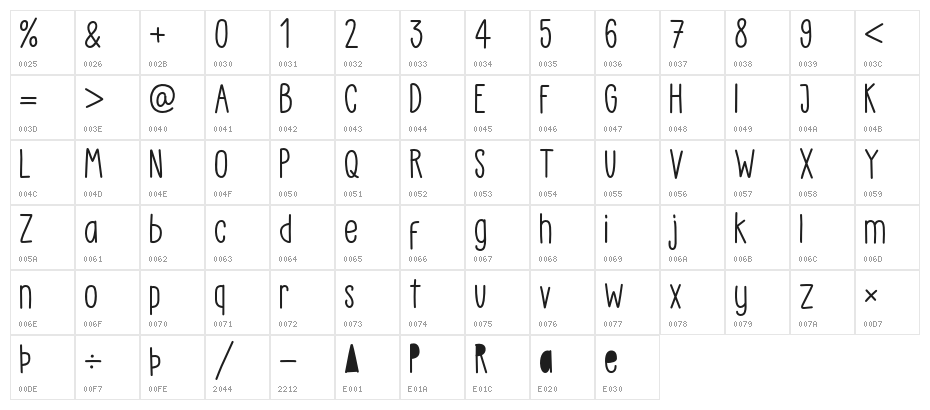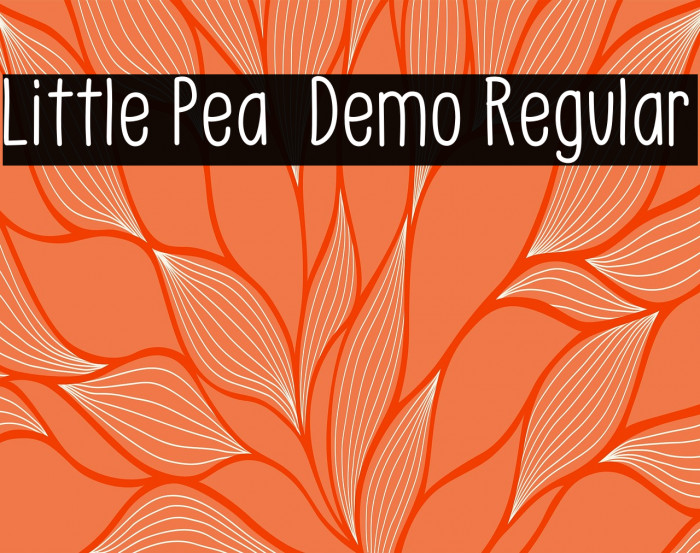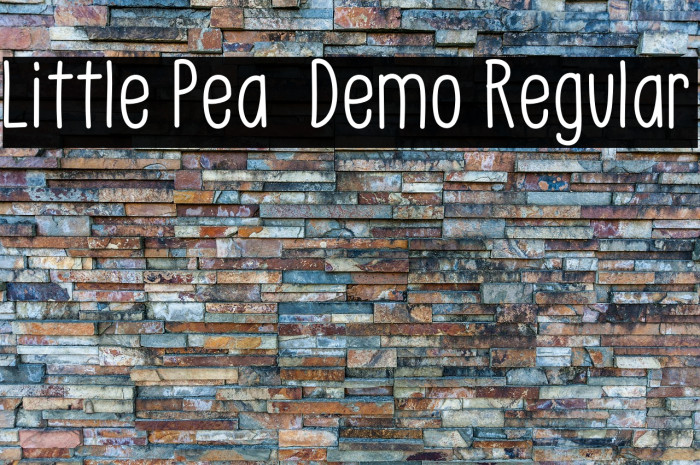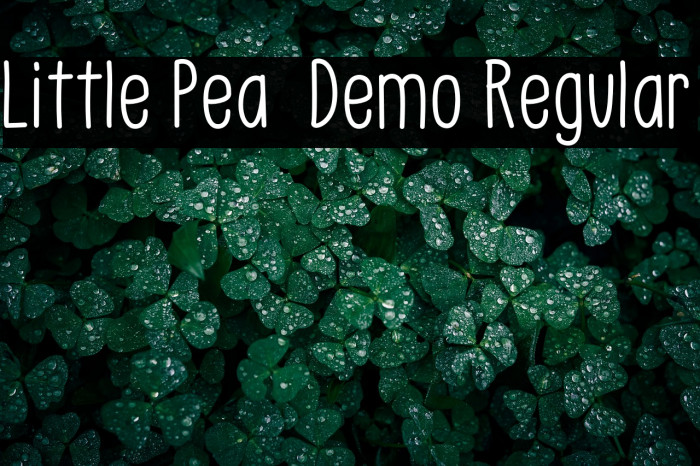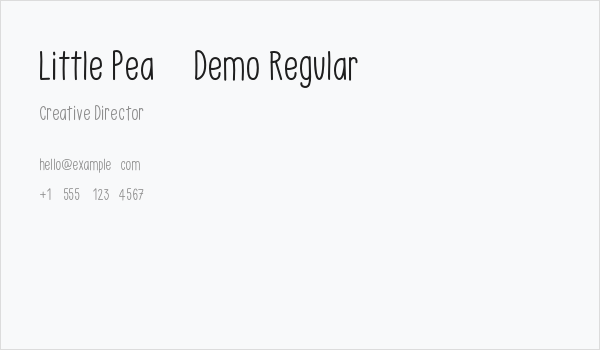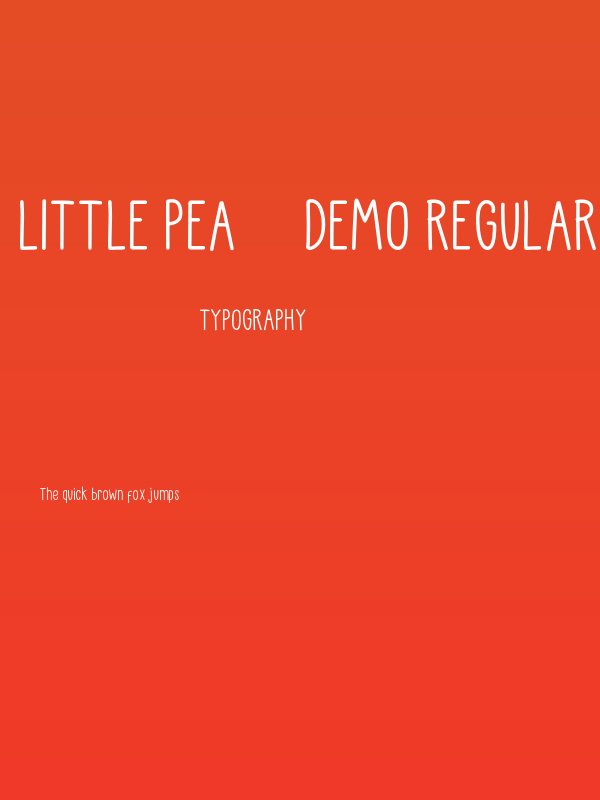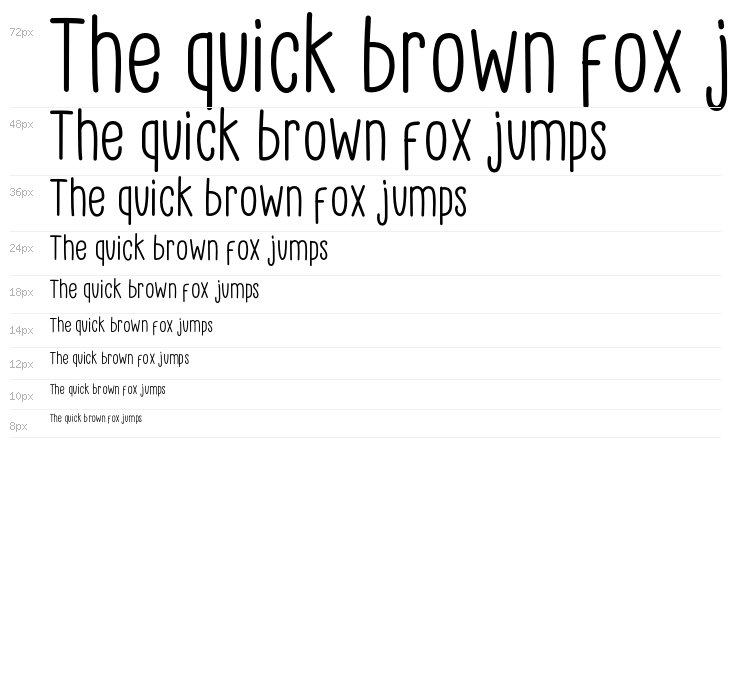
Little Pea - Demo Regular Font
Little Pea - Demo Regular Description
This playful and whimsical font features tall, narrow characters with a hand-drawn appearance. The letters have a consistent stroke width, giving them a clean and uniform look. The rounded edges and slightly irregular shapes add a friendly and approachable feel. The font includes both uppercase and lowercase letters, numerals, and a few special characters. Its informal style makes it suitable for creative projects, children's books, and casual designs. The overall aesthetic is light-hearted and fun, making it ideal for projects that aim to convey warmth and friendliness.
| Overall Style | Whimsical |
| Use Case | Headlines, Logos, Casual Text |
| Proposed Projects | Ideal for children's books, greeting cards, playful branding, and casual invitations. |